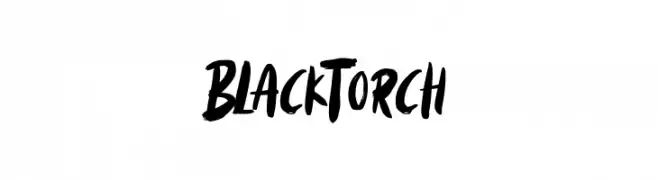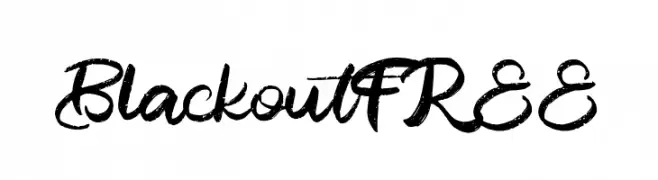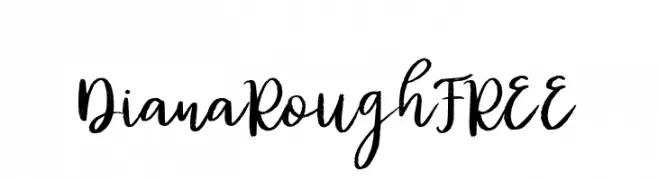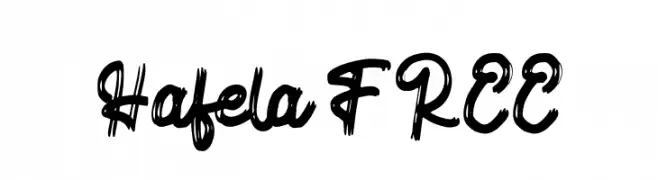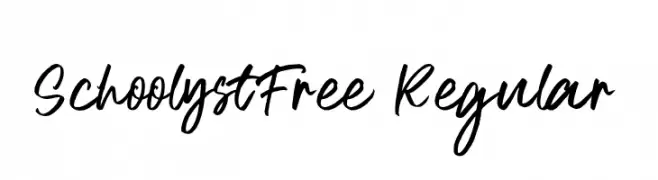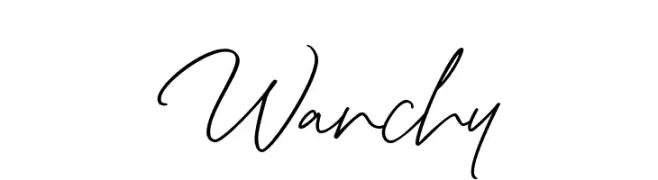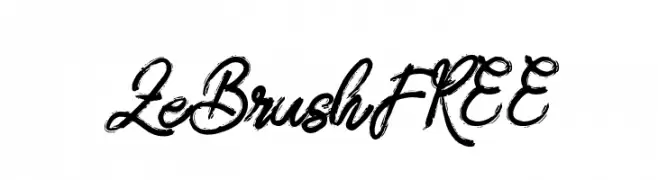
A lively and expressive handwritten font with fluid strokes and a playful elegance.
A lively, cursive handwritten font with fluid strokes.
A bold, expressive handwritten font with dynamic strokes and a brush-like texture.
A bold, expressive script font with a hand-painted, artistic style.
A bold, dynamic brush script font with an expressive, hand-painted style.
A bold, textured script font with a hand-drawn, cursive style.
A dynamic brush-style font with bold, sweeping strokes and a hand-painted appearance.
A bold, brush script font with a dynamic and textured style.
A bold, brush-style font with an energetic and artistic appearance.
A lively handwritten font with fluid strokes and a playful, dynamic style.